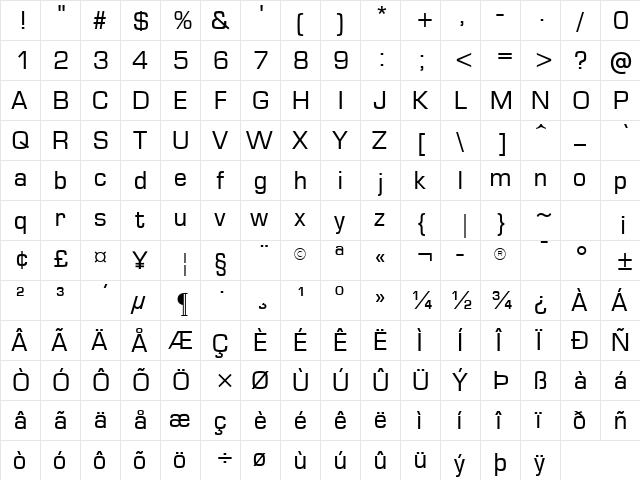
Metrostyle EC Regular
Design Context for Metrostyle EC Typeface
Metrostyle EC offers clean, dependable letterforms without strong stylistic allegiance, making it a practical choice for designers who need flexibility.
Pro Tip: Use Metrostyle EC in both headline and body roles to test its range before committing to a single application.